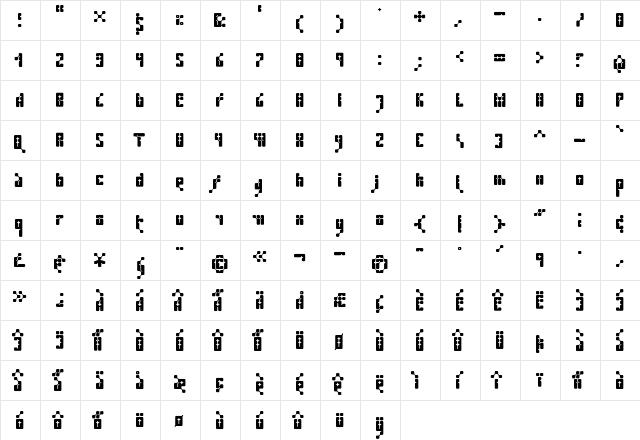
Kernfusion Regular
Design Context for Kernfusion Typeface
Kernfusion takes a measured approach to typography — its balanced proportions and neutral character make it a reliable workhorse for both digital and print work.